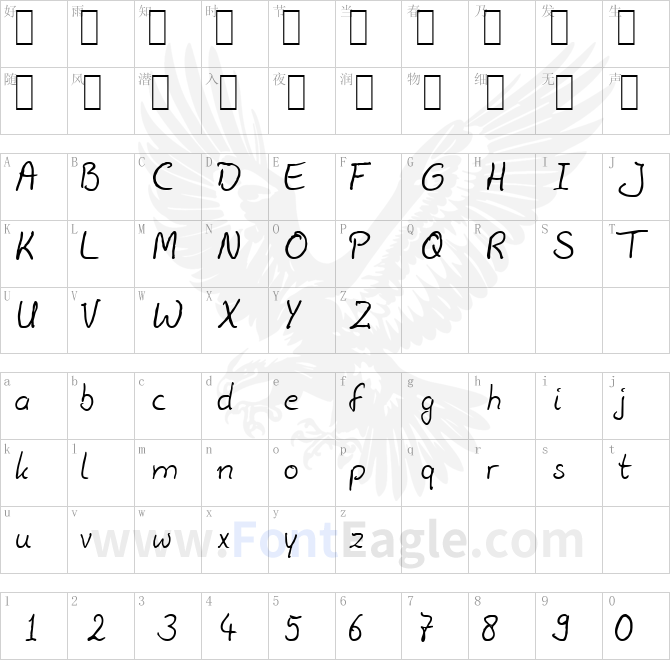
Julius Thyssen Cool.ttf Font Image
Julius Thyssen Cool.ttf Base Font Information
- Font name:Julius Thyssen
- Font Subfamily:Cool
- Font Subfamily ID:JTHZ:Julius B Thyssen
- Font Full Name:Julius B Thyssen
- Font Version:Revision: DEC29
- Postscript:Julius-BThyssen
- Font Copyright:©1996 CREATED entirely BY Julius Benedictus Thyssen; My own handwriting! JTHZ – P.O.box 18156 1001 ZB Amsterdam
Julius Thyssen Cool.ttf Characters Sample